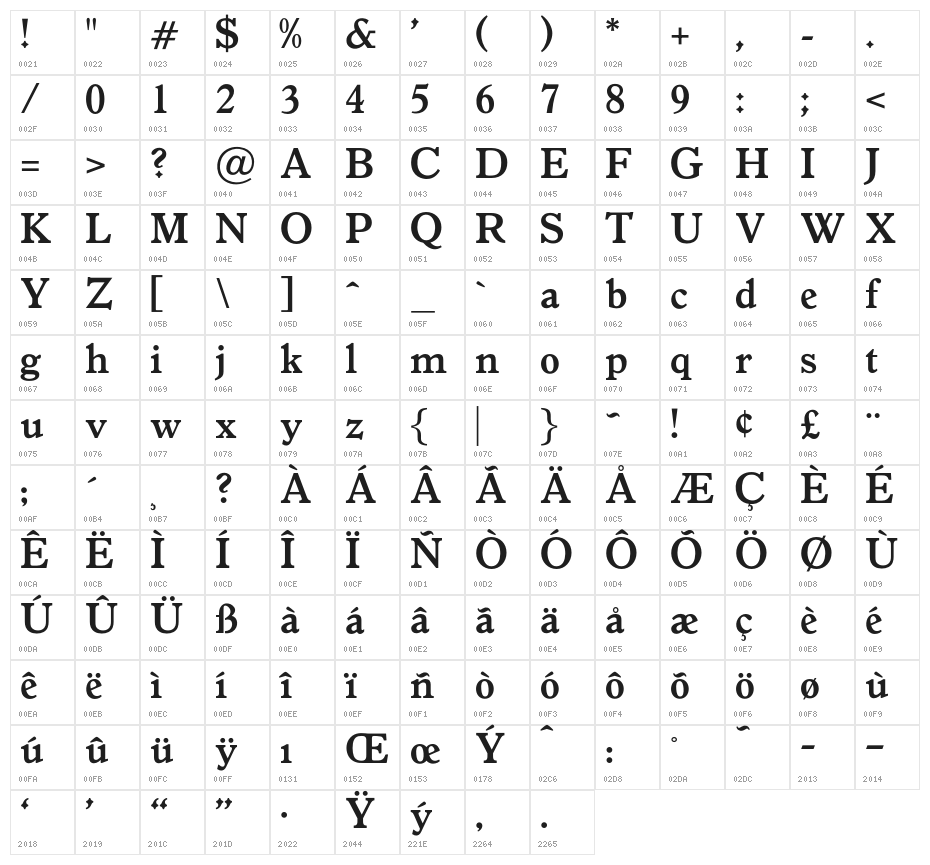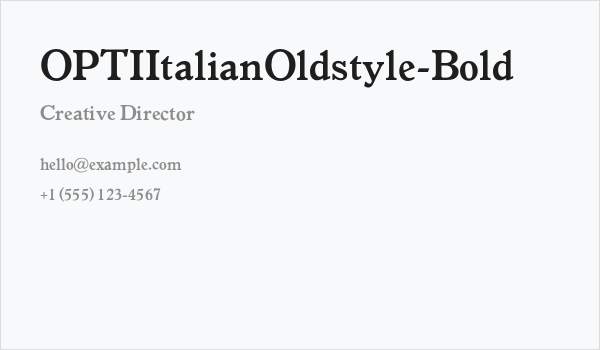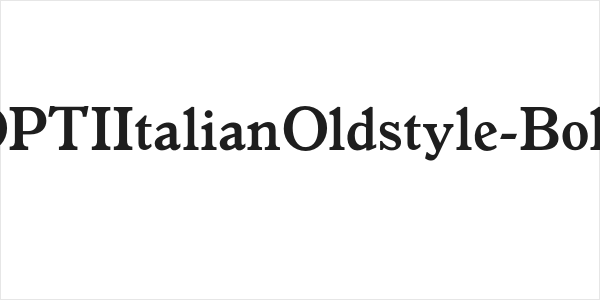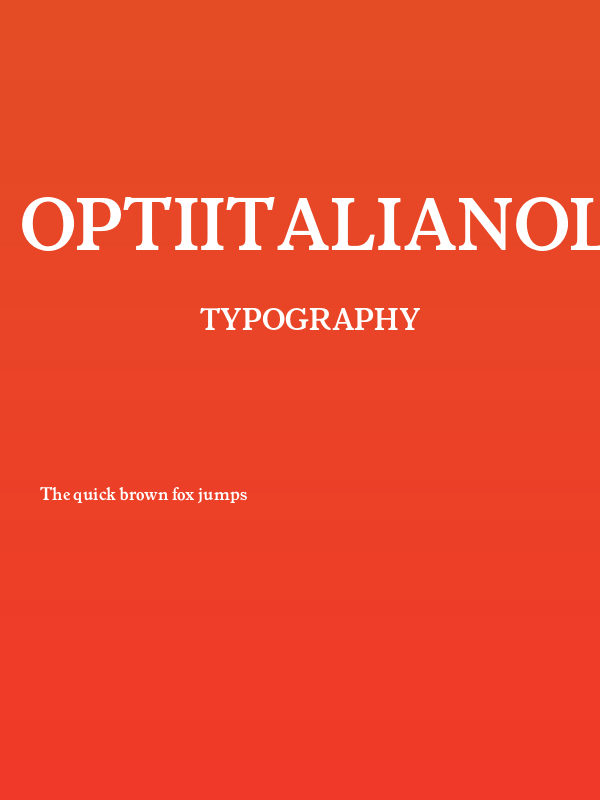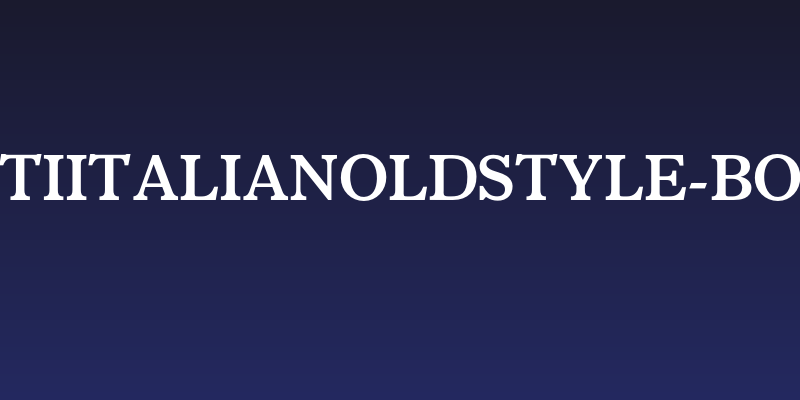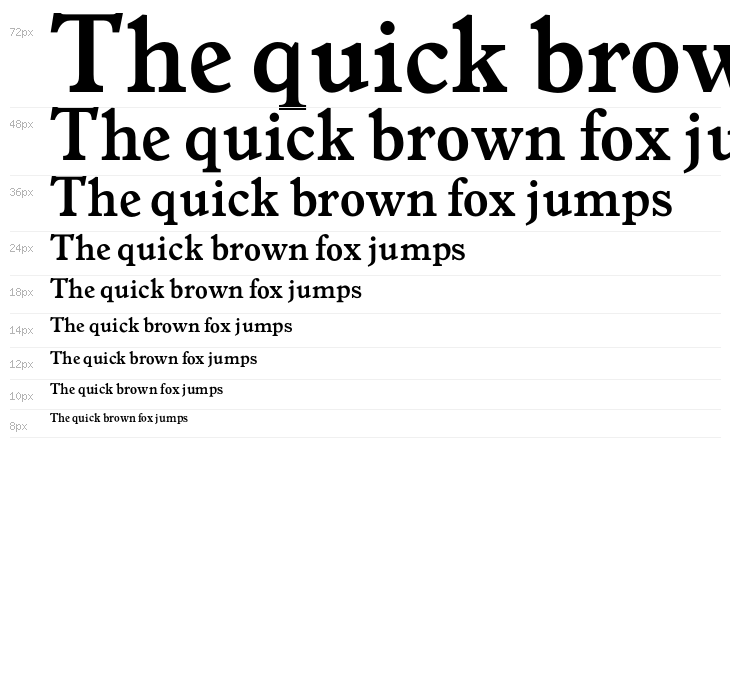
OPTIItalianOldstyle-Bold Font
OPTIItalianOldstyle-Bold Description
This font exudes a classic and elegant style, characterized by its bold and pronounced serifs. The uppercase letters are strong and commanding, while the lowercase letters maintain a harmonious balance with a slightly rounded appearance. The numerals are clear and distinct, ensuring readability. Special characters are crafted with attention to detail, adding to the font's versatility. The overall design is reminiscent of traditional Italian typography, making it suitable for projects that require a touch of sophistication and heritage.
| Use Case | Headlines, Logos, Editorial design |
| Proposed Projects | Ideal for book covers, formal invitations, branding for luxury products, and editorial design. |